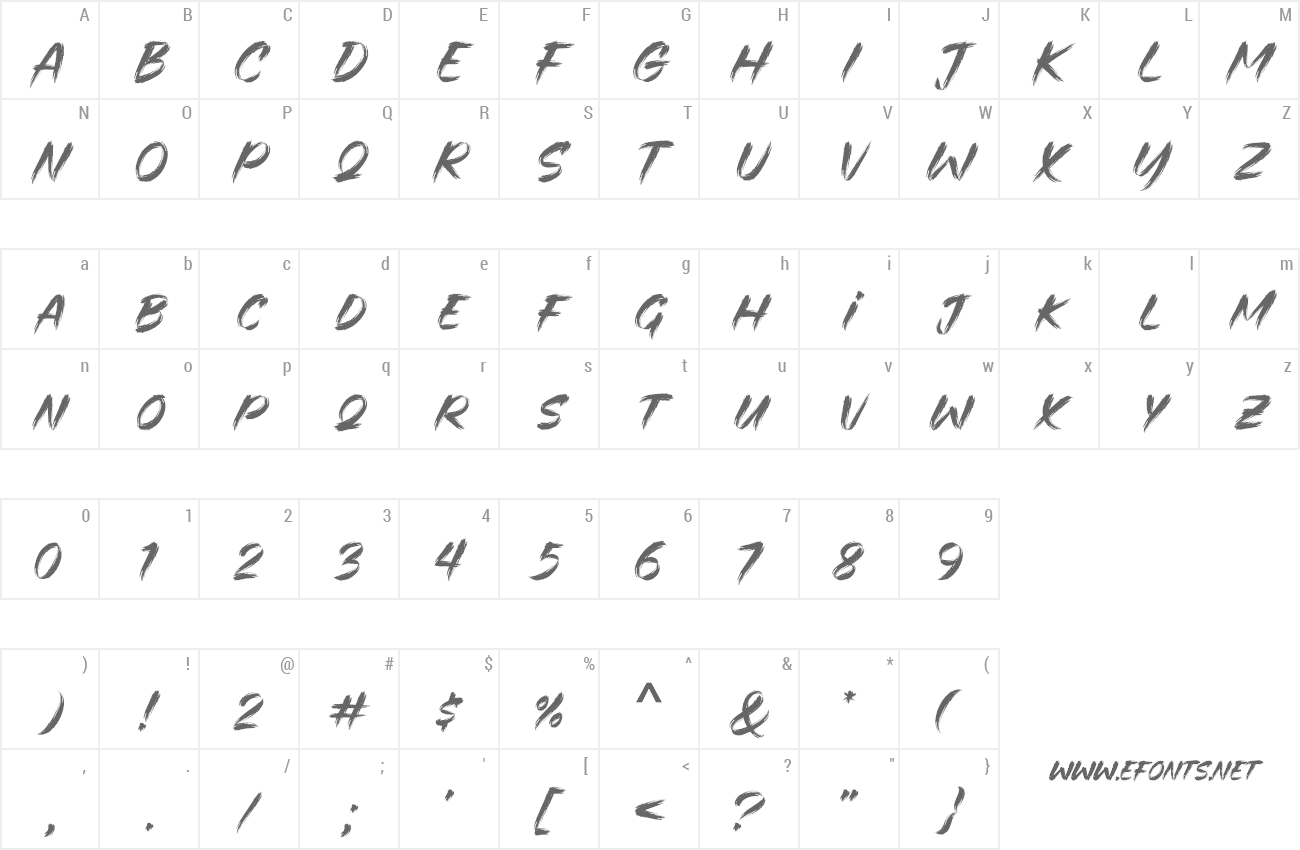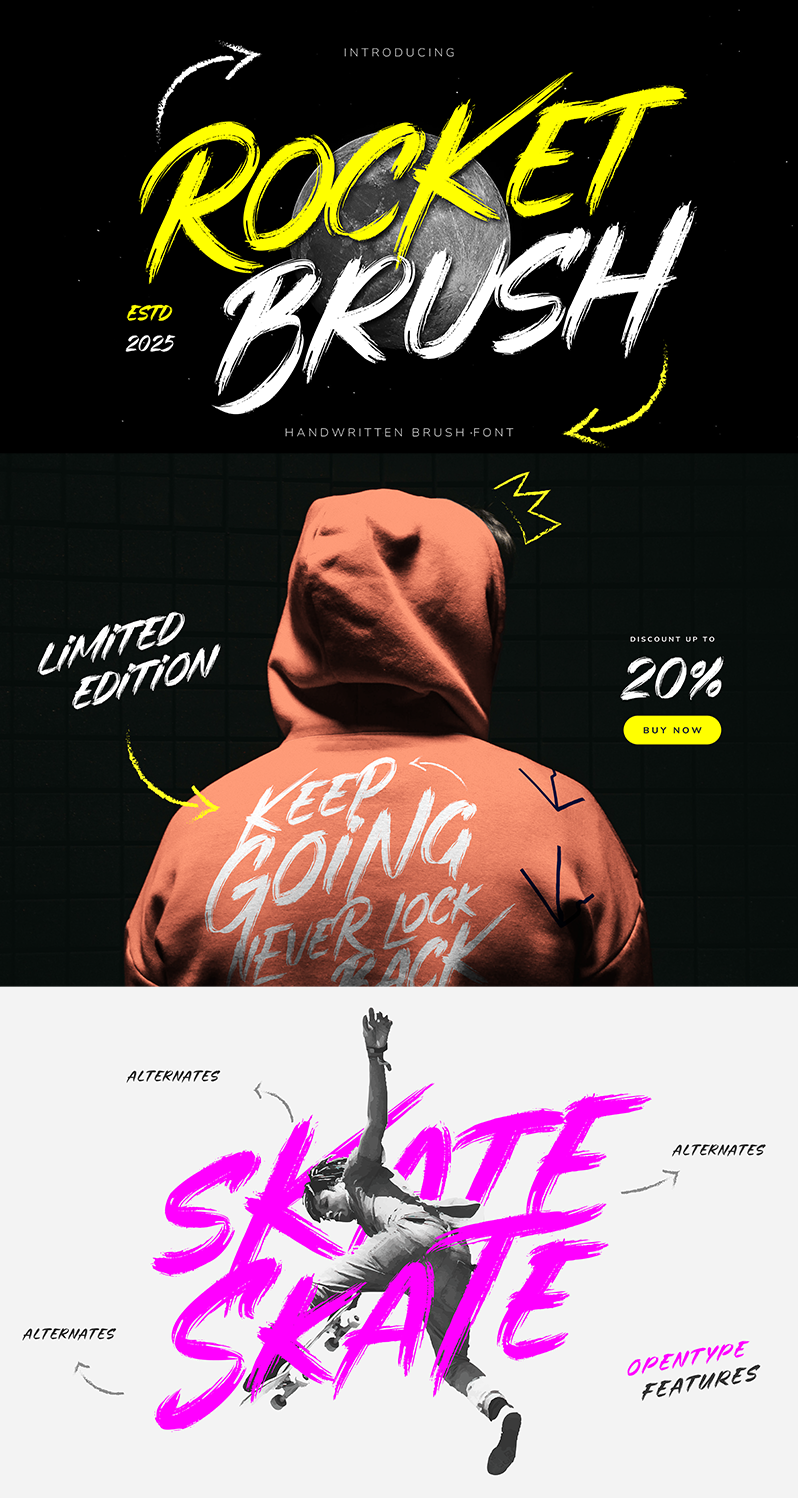
Preview and download Rocket Brush Font. Created by Namara Creative in Script Brush styles with 100% Free license.
Unleash a surge of creativity with Rocket Brush, a handcrafted brush font pulsing with raw, energetic style. Each letter is infused with dynamic strokes and bold character, making it the perfect choice for projects that demand attention and personality. Download Full Version Here https://onedsgn.com/product/rocket-brush/ |